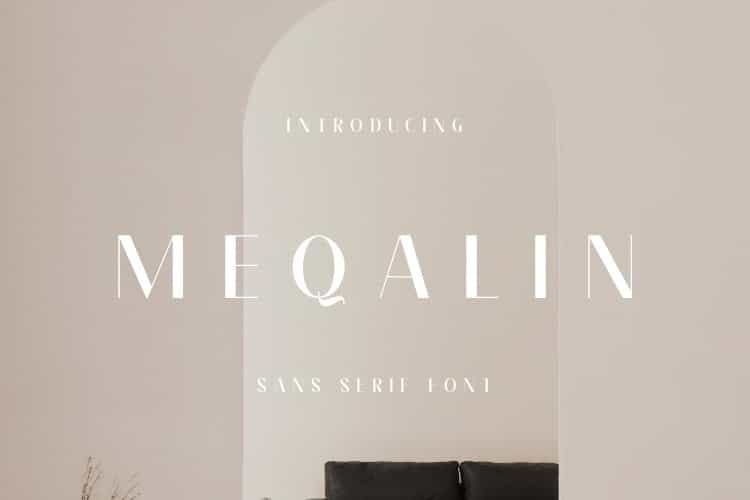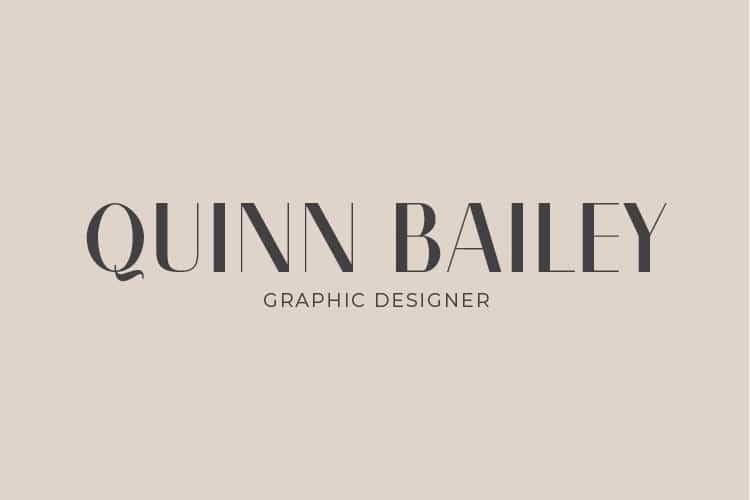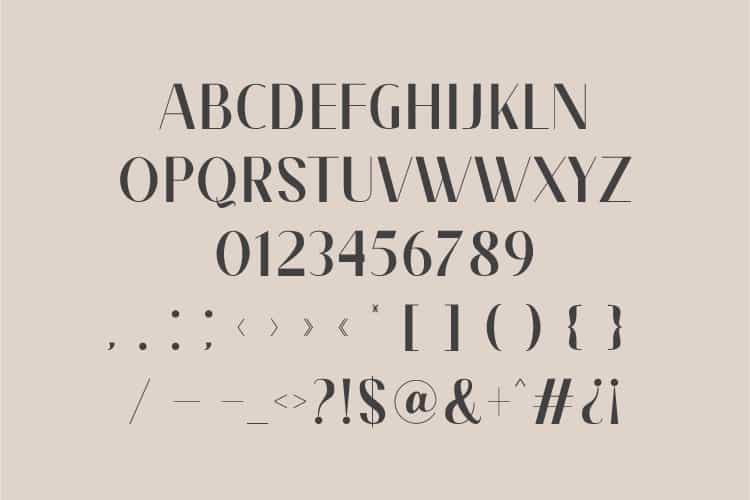
Meqalin is an eye-catching, bold sans serif font with the perfect mix of fashion. PUA encoded, you have access to all characters. Don’t be intimidated to incorporate Meqalin into your creative work and be amazed at its amazing results!